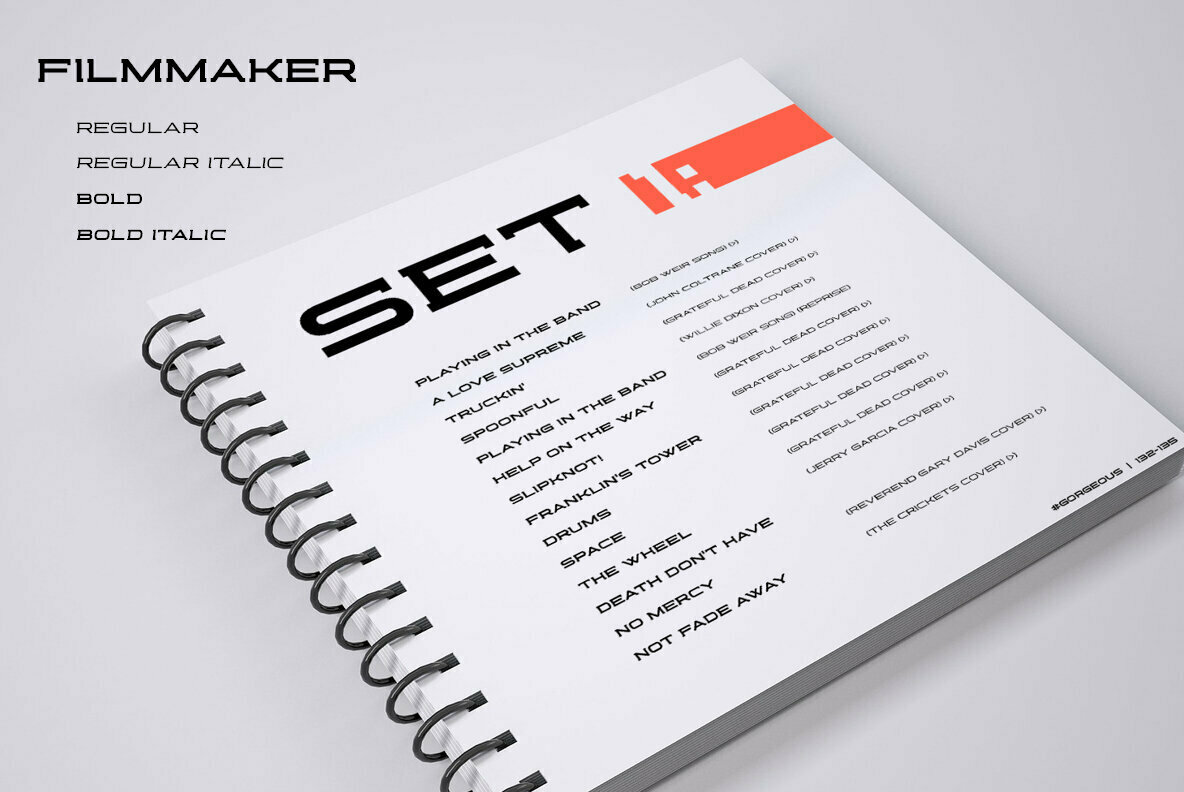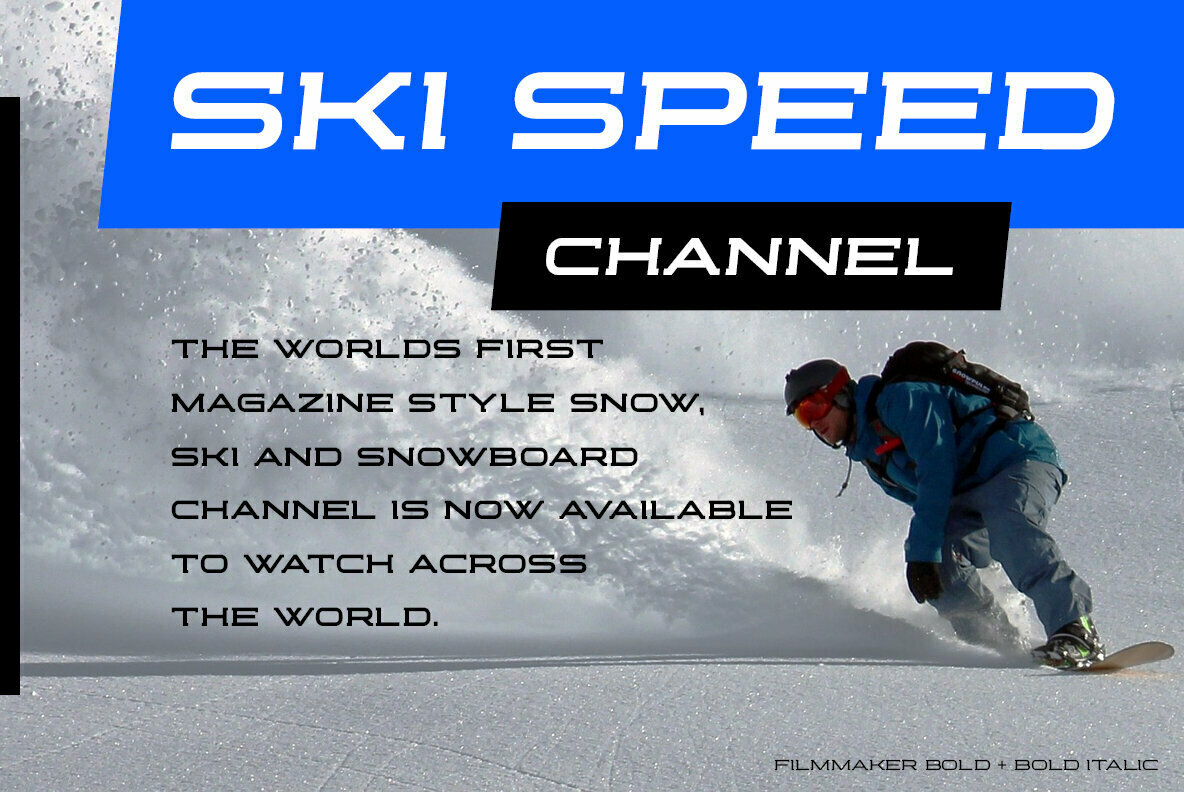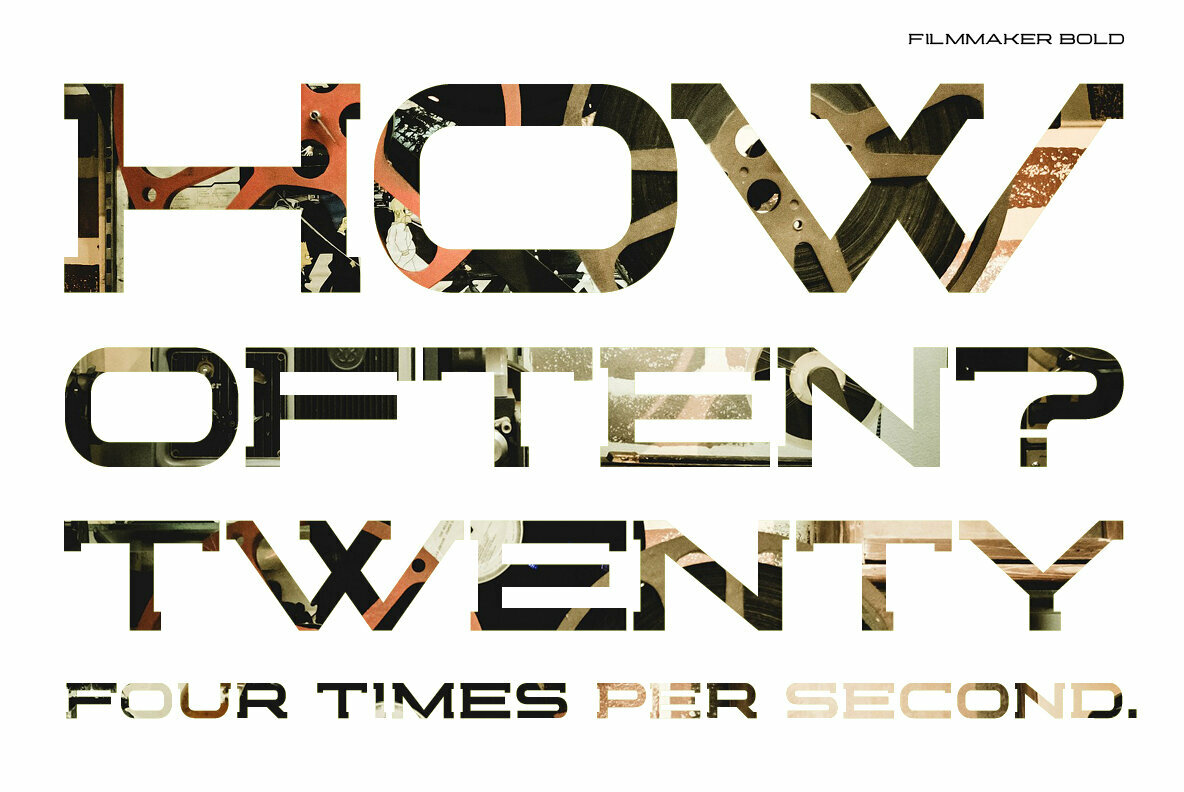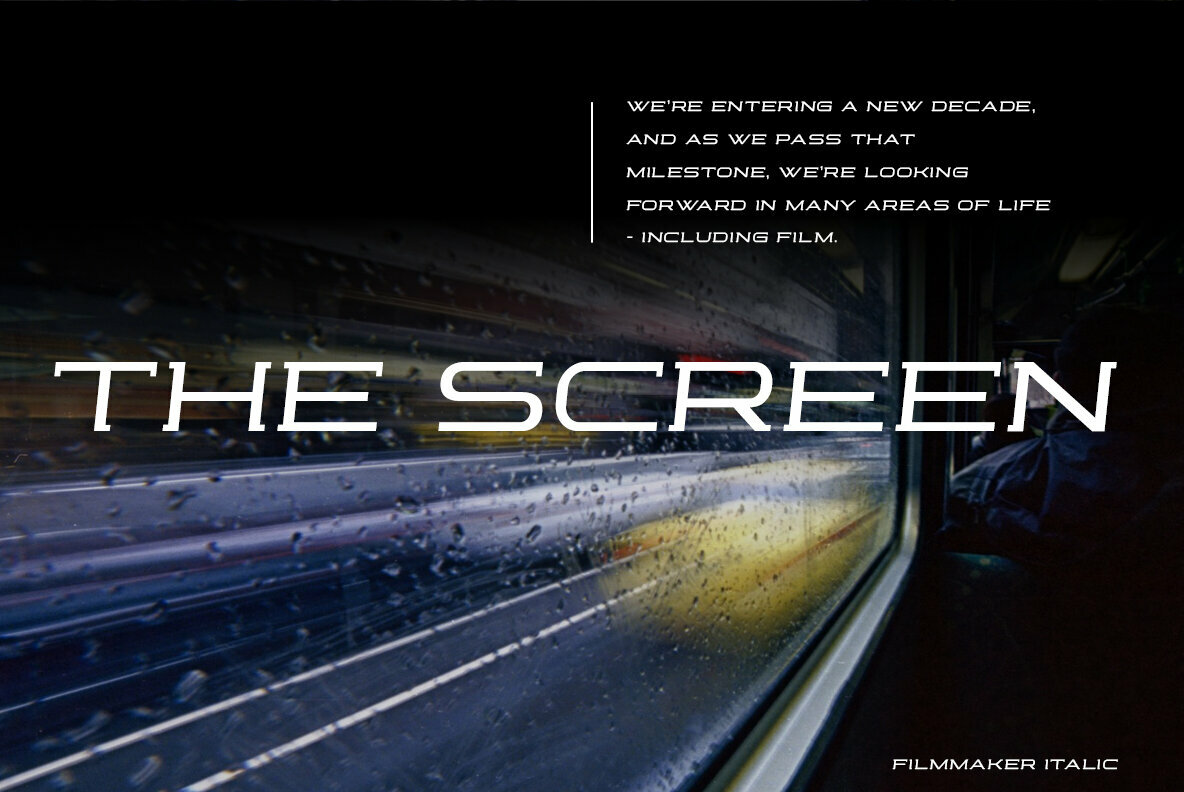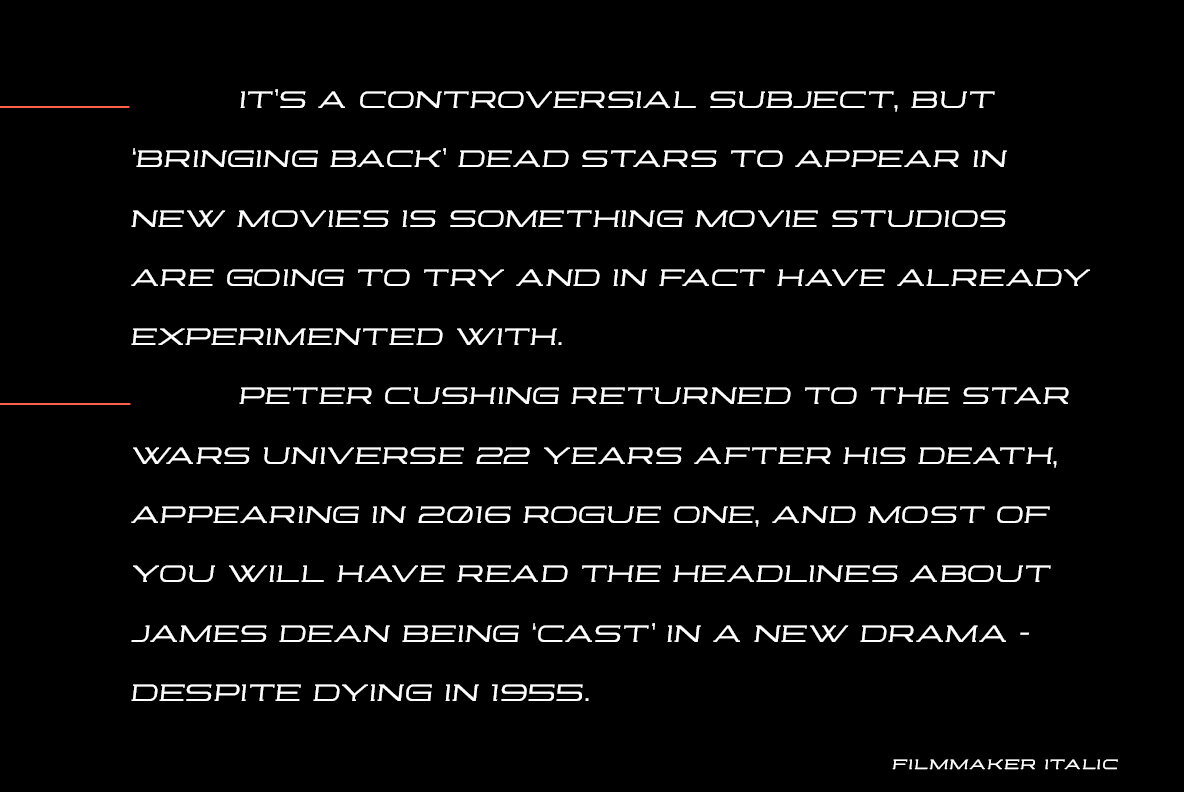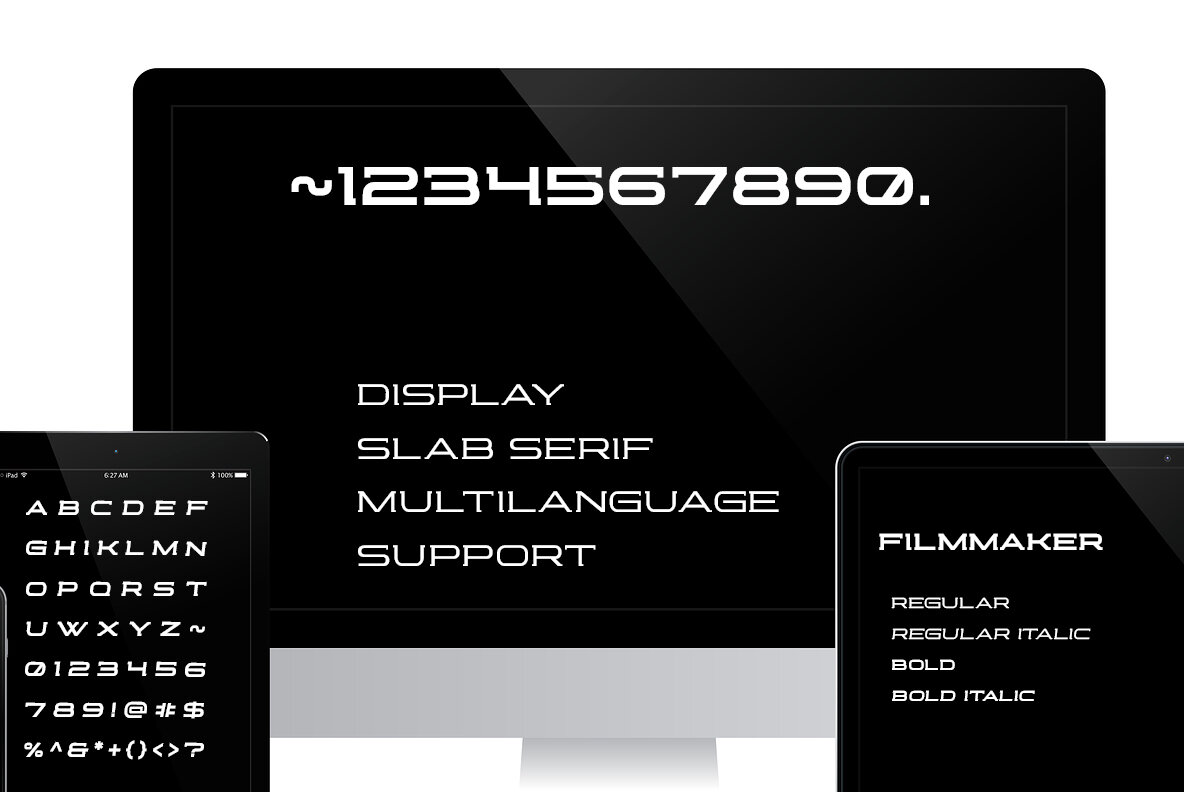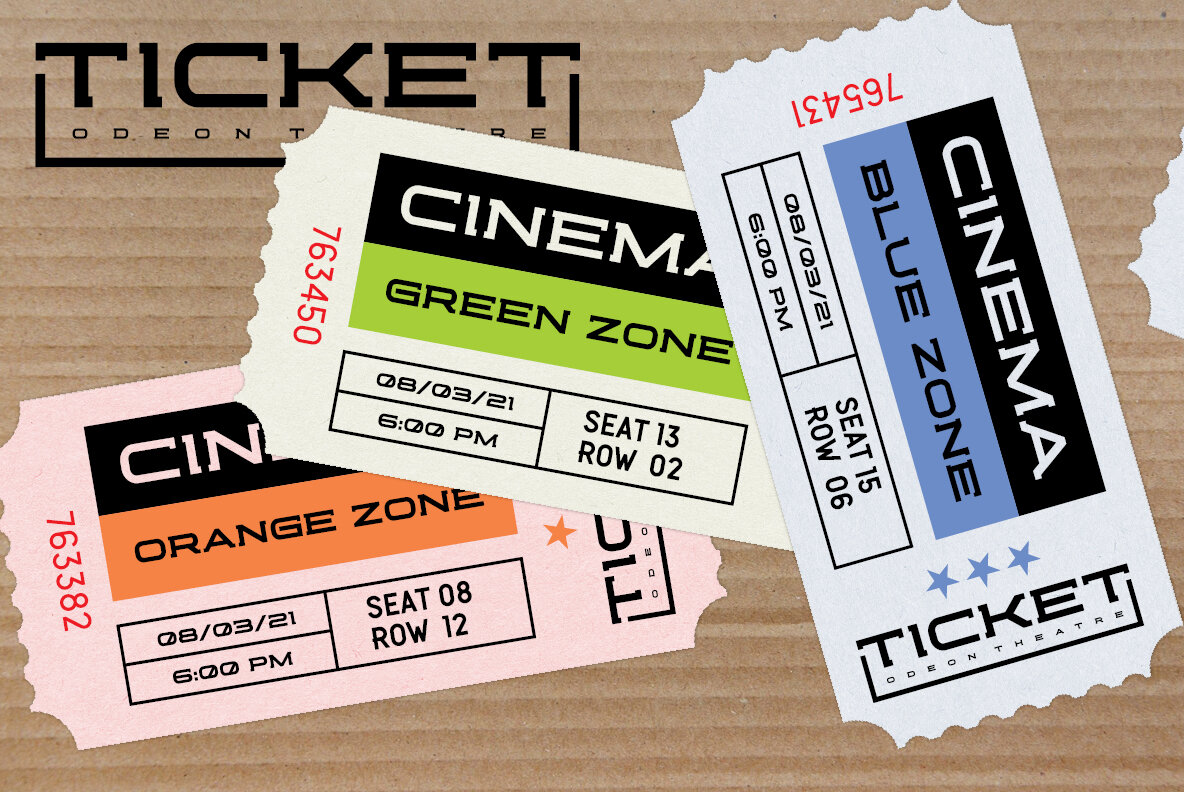
Filmmaker Font
Filmmaker is a wide, slab serif, display font with four varieties. It works well for modern, dynamic projects, logotypes, films, posters, billboards, press advertisements, websites, packaging. It provides multilingual support.